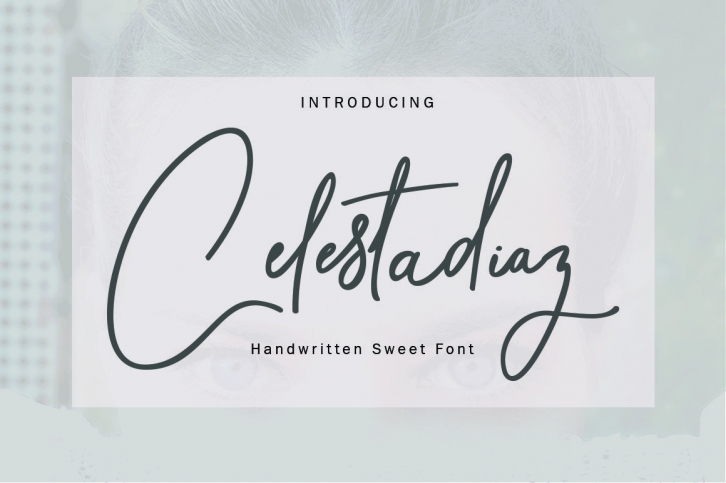
Celesta diaz Script is a modern calligraphy font with the current handwriting style, this font is perfect for branding, wedding invites, magazines, mugs, business cards, quotes, posters, and more, you can try first if you want to buy this font.
Celesta diaz Script is equipped with 345 glyphs and 93 ligatueres. and by having many of these glyphs there will be able to choose the letters according to your likes, lots of variations and options for each letter, so you can customize on your design choices.